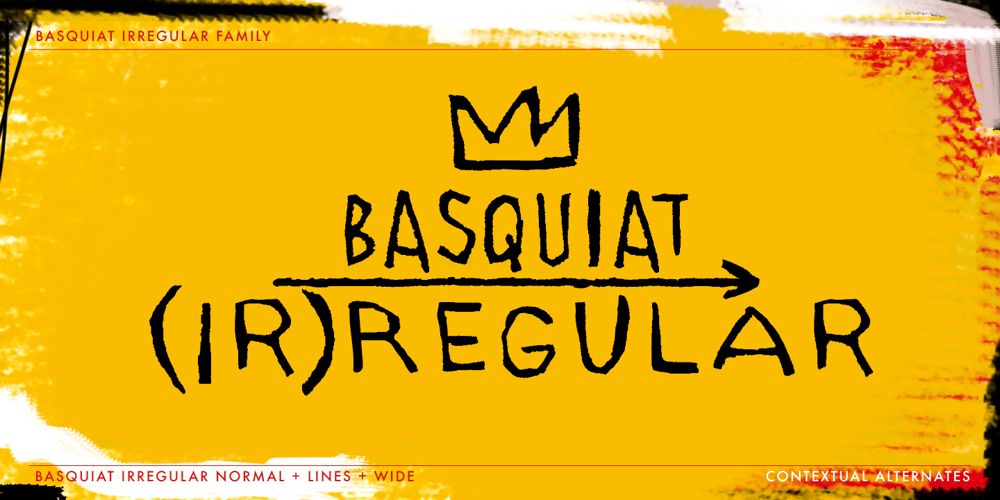
Basquiat Irregular Font Family was designed by Ola Dębniak and published by Cuda Wianki. Basquiat Irregular contains 4 styles and family package options. Basquiat Irregular is a font inspired by graffitti and children’s writing. Contains 3 alternative characters for each letter, multilanguage support including cyryllic. It’s perfect for creating artistic publications, writing quotes and many other designs. The family also has two fonts with frames, lines and ornaments. Its apperance is rough, hand painted and casual. Perfect for music and street art designs. Frames and lines are created by typing uppercase letters for starting or ending frame or creating an arrow and lowercase letters for typing lines.